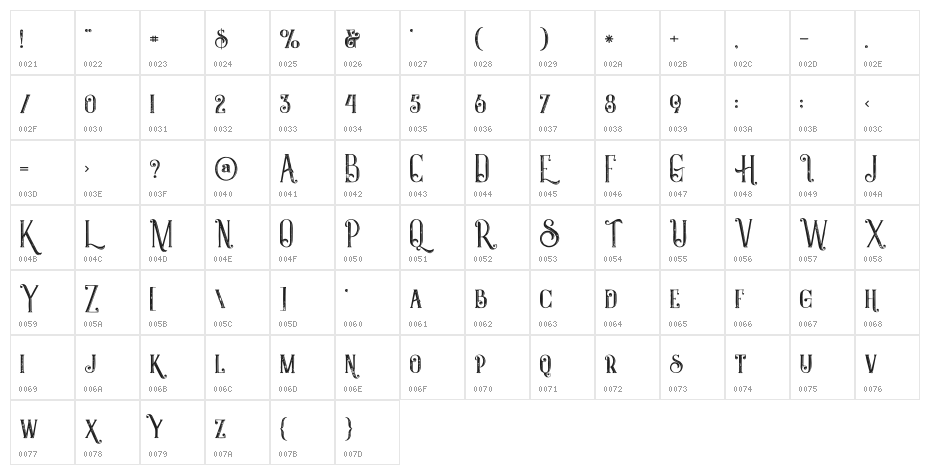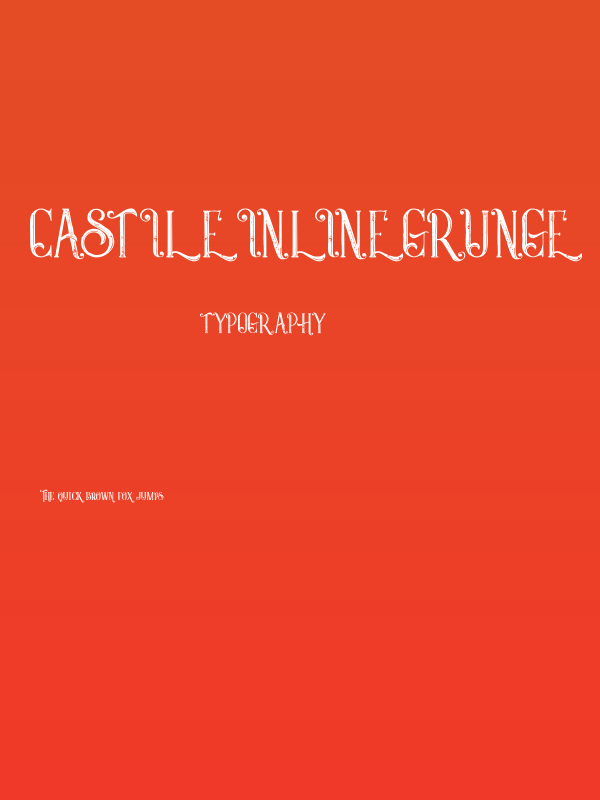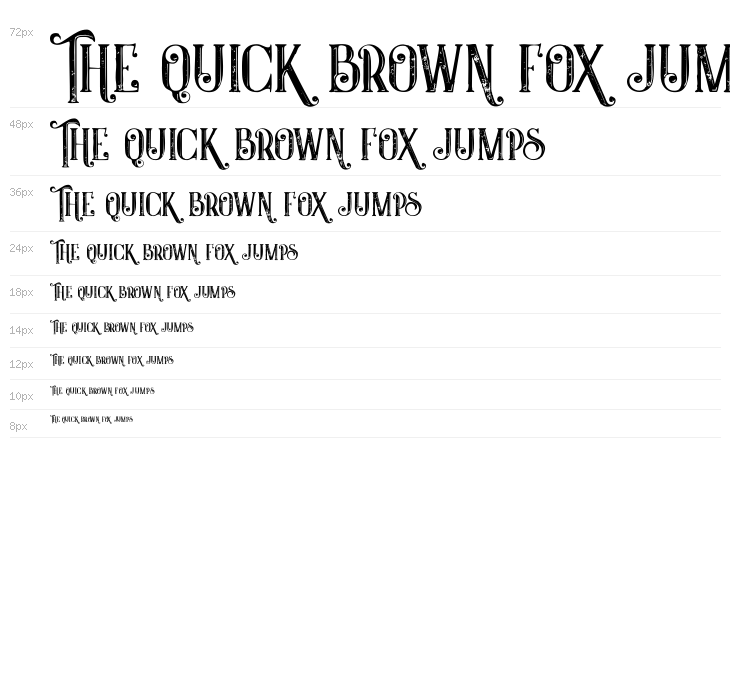
Castile Inline Grunge Font
Castile Inline Grunge Description
This font features a distinctive grunge style with an inline design that adds depth and texture to each character. The uppercase letters are bold and commanding, with decorative serifs that enhance their vintage appeal. The lowercase letters maintain the same stylistic elements, ensuring consistency throughout the typeface. Numbers and special characters are crafted with the same attention to detail, making them suitable for a variety of design applications. The distressed texture gives the font an aged, weathered look, perfect for projects that require a touch of nostalgia or a rustic feel.
Overall StyleVintage
Proposed ProjectsIdeal for vintage posters, album covers, branding for rustic-themed businesses, and any design project needing a retro or distressed look.